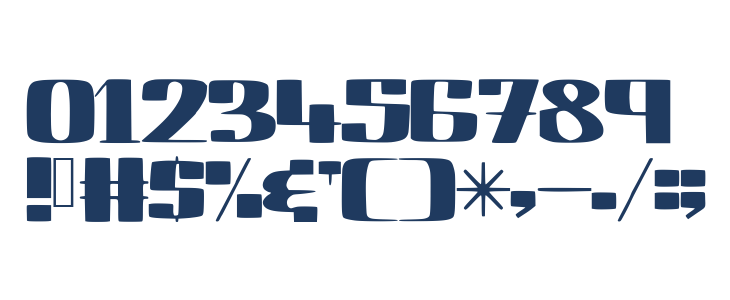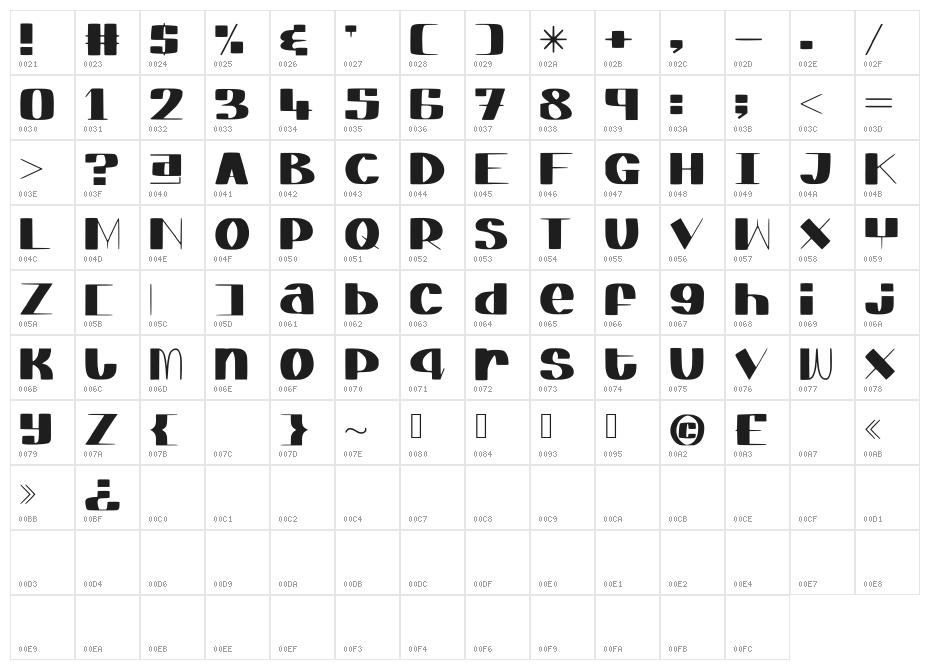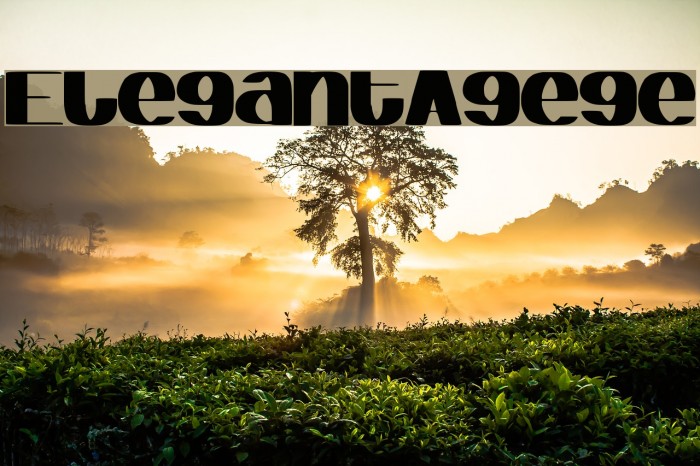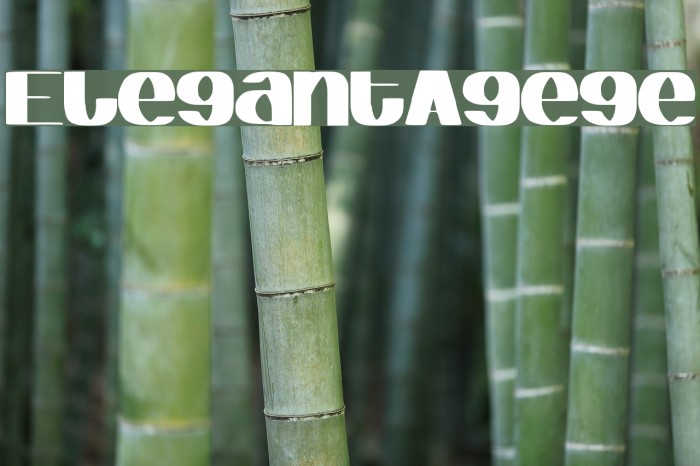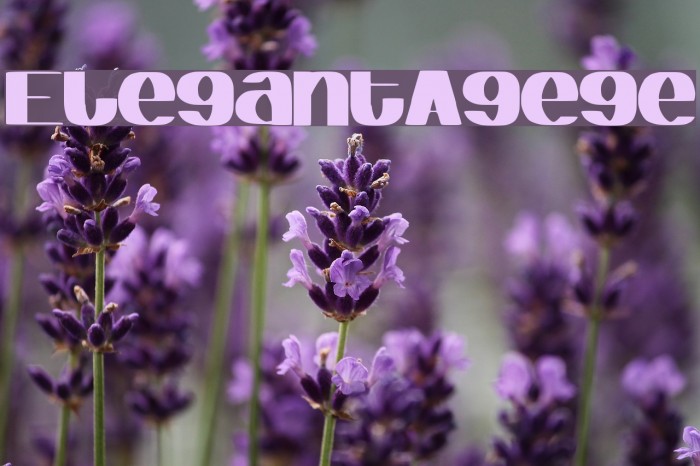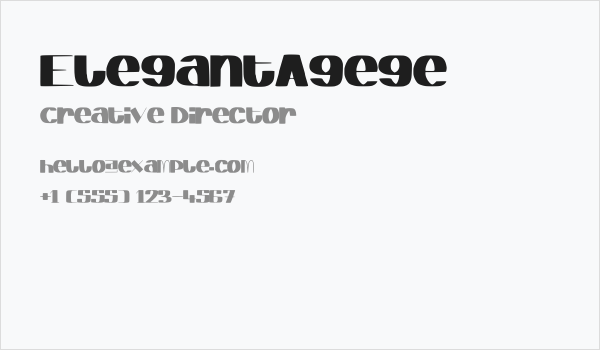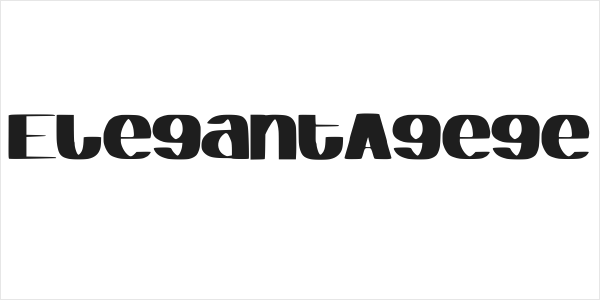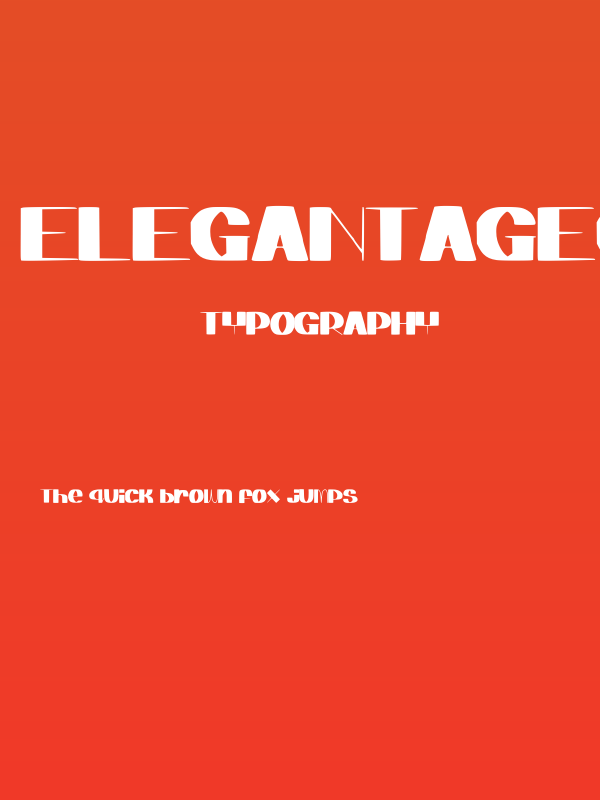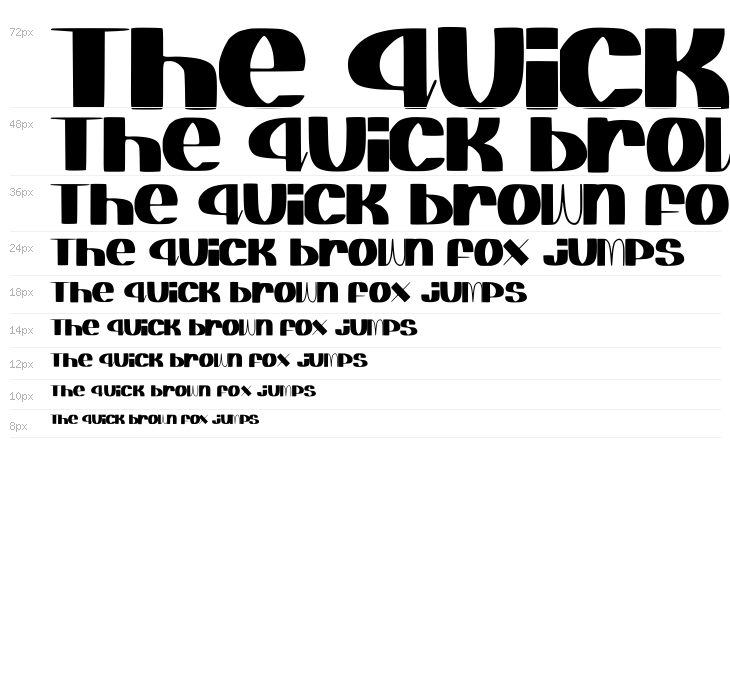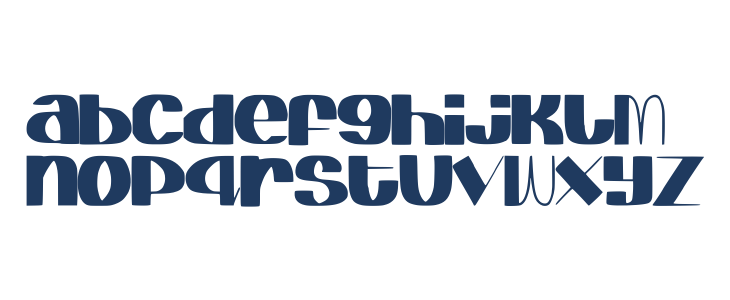
ElegantAgege Font
ElegantAgege Description
This font features a bold and striking design with a modern flair. The characters are uniquely crafted with a mix of thick and thin strokes, creating a high contrast that draws attention. The uppercase letters are particularly distinctive, with angular and geometric shapes that give a futuristic feel. The lowercase letters maintain the boldness but with a slightly softer edge, making them versatile for various design contexts. Numbers and special characters follow the same bold and geometric style, ensuring consistency across all elements. This font is ideal for making a statement in any design project.